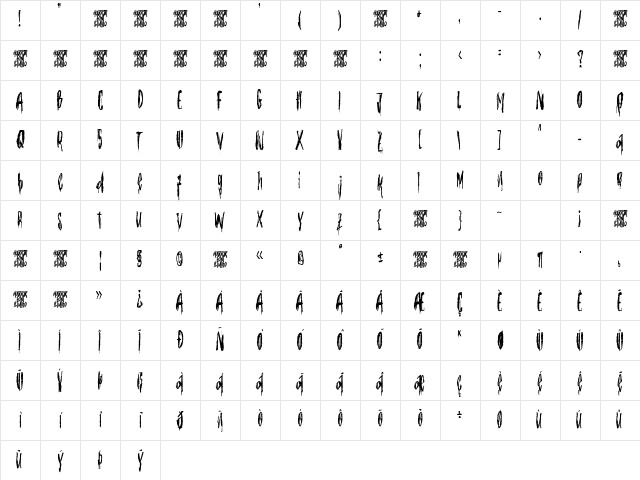
Ephemeral Nightmares Regular Free Font
Ephemeral Nightmares Regular
Designer: Toni Dzulham
Design Context for Ephemeral Nightmares
Ephemeral Nightmares is a composed and adaptable typeface that performs quietly and consistently across a wide range of design contexts.